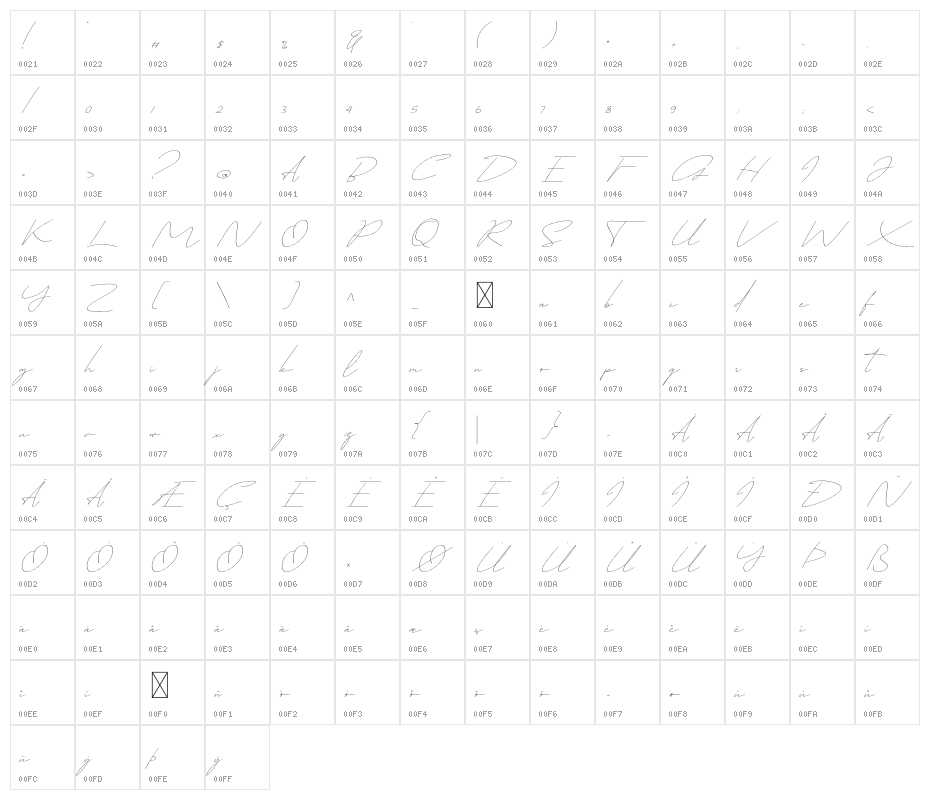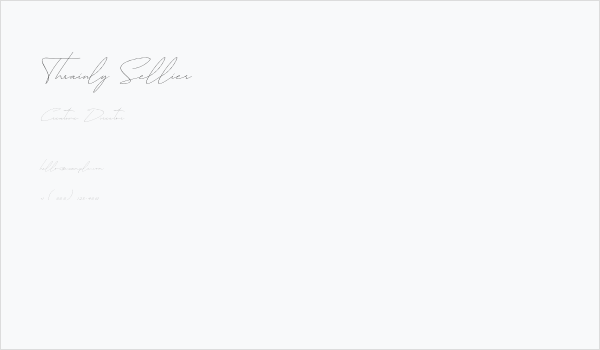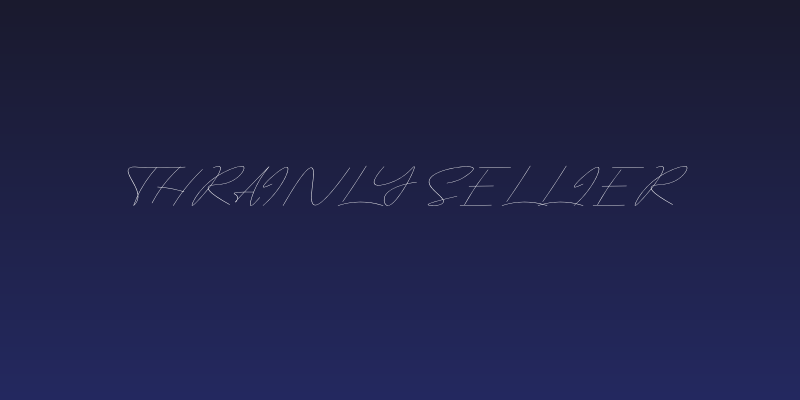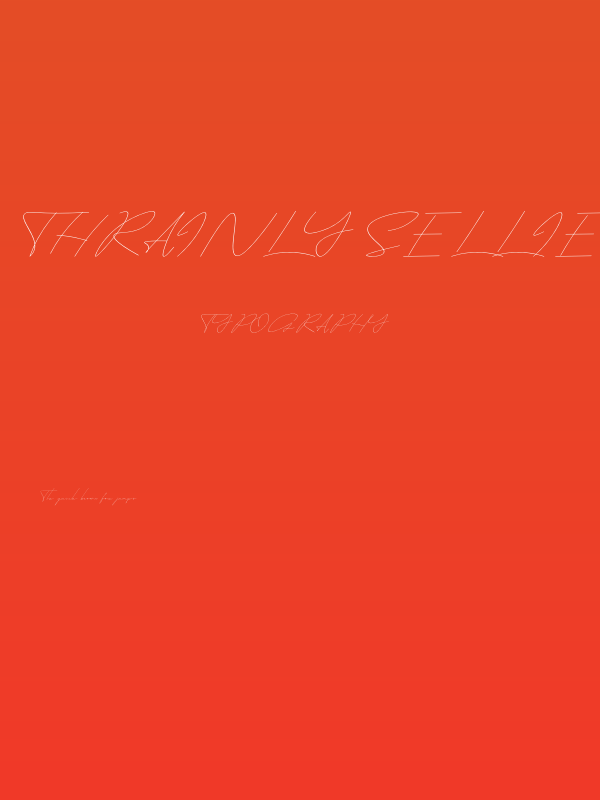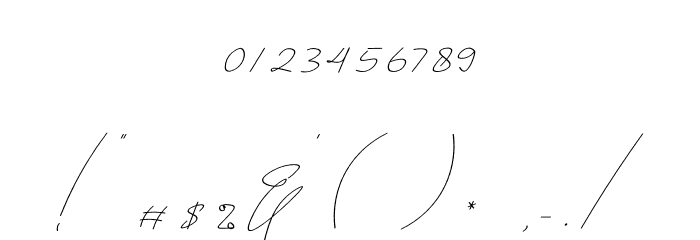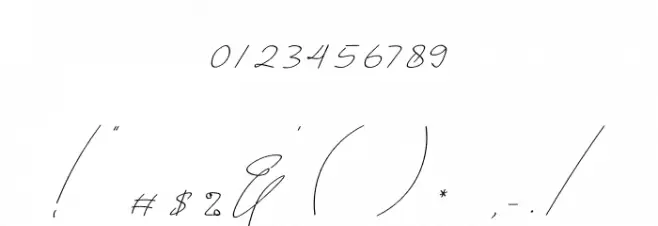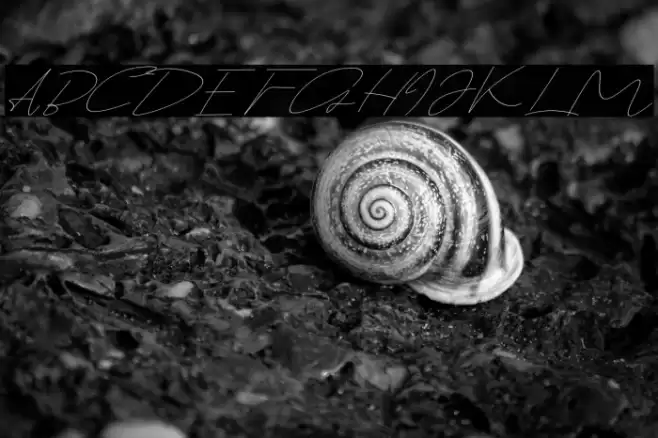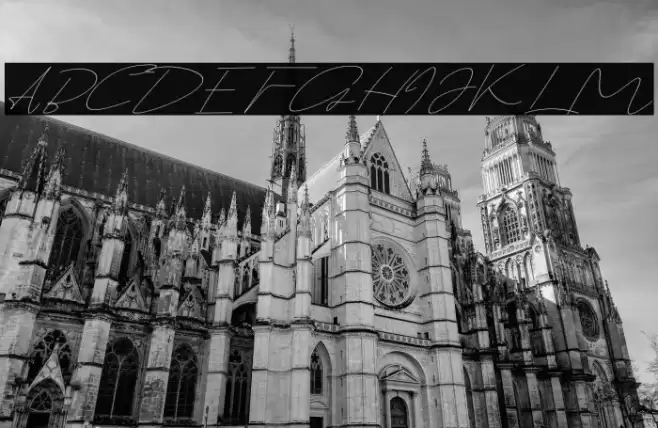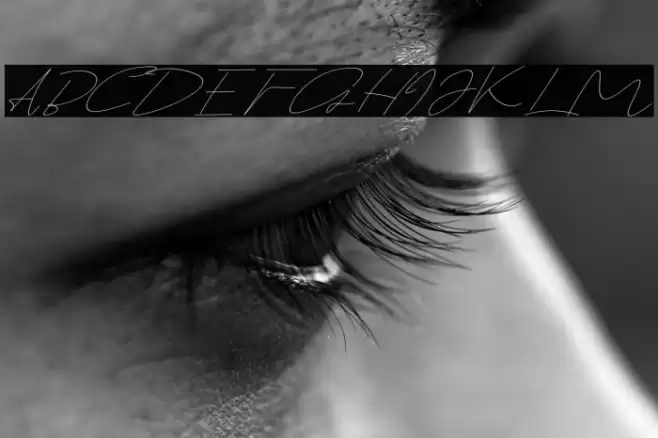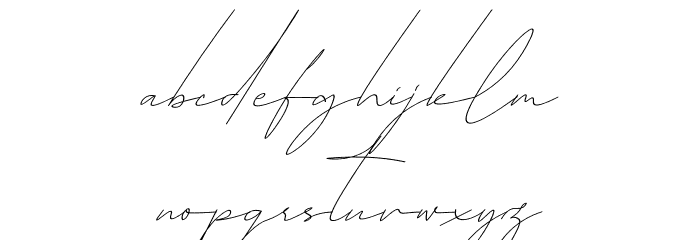
Thrainly Sellier Font
| Stile generale | Elegant, Sophisticated |
| Caso d'uso | Invitations, Branding, Stationery |
| Progetti proposti | Ideal for wedding invitations, luxury branding, elegant stationery, and high-end product packaging. |